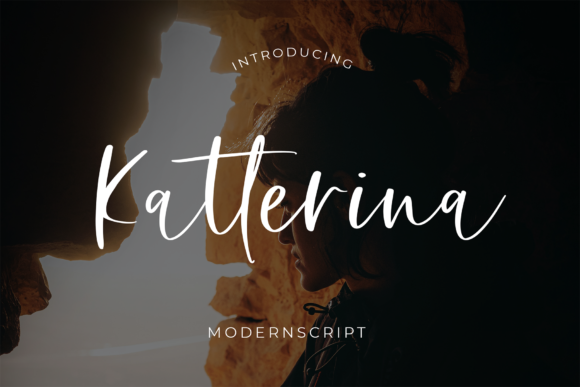
Katterina Font: A Designer’s Take on Elegant Script
Opening a blank artboard for a new boutique skincare client always brings that familiar mix of excitement and pressure, but testing Katterina as the primary display typeface immediately shifted my anxiety into creative flow. As I began sketching out the visual identity for this organic beauty line, I needed something that felt personal yet polished, and Katterina is an exquisite handwritten font, masterfully designed to become a true favorite in my digital toolkit. It maintains its classy calligraphic influences while feeling contemporary and fresh, which was exactly the balance required to make the brand feel luxurious without appearing dated or overly formal. Fall in love with it as you watch your mockups transform from generic templates into bespoke brand assets that actually resonate with a modern audience.
Using Katterina for Boutique Skincare Brand Identity
When integrating Katterina into a comprehensive brand identity system, I quickly realized that this Script Handwritten style offers far more versatility than standard decorative Fonts often do. For this specific project, the goal was to create a logo mark that looked like it had been signed by the founder herself, conveying authenticity and artisanal care. The letterforms in Katterina have a natural bounce and rhythm that prevents the logotype from looking stiff or computer-generated, which is a common pitfall when using script fonts for commercial branding. I found that the uppercase characters provided enough structural weight to anchor the logo, while the lowercase letters offered that delicate, flowing connectivity essential for high-end beauty aesthetics. This duality allowed me to use the font confidently across both the primary logo lockup and secondary brand marks without losing legibility or impact.
Katterina Typography on Product Packaging and Labels
Moving from screen to print, applying Katterina to product packaging and labels revealed how well this typeface handles physical media and tactile surfaces. In the skincare industry, packaging is often the first physical touchpoint a customer has with the brand, so the typography needs to remain crisp even when embossed on textured paper or printed on small glass bottles. I tested Katterina at various sizes on serum dropper labels and outer box sleeves, noting that the stroke contrast remains distinct even at smaller point sizes where many other script fonts tend to bleed or disappear. The contemporary freshness of the design ensures that the product looks current on a crowded shelf, while the classy calligraphic influences signal premium quality to the consumer. It is crucial to check the OpenType features during this stage, as accessing stylistic alternates allowed me to customize specific letter connections on curved label surfaces, ensuring the text flowed naturally around the bottle rather than looking pasted on.
Pairing Katterina with Sans Serif Fonts for Web Design
While Katterina shines as a headline and accent element, successful web design requires thoughtful font pairing to maintain readability and user experience across digital platforms. For the boutique’s e-commerce site, I paired Katterina exclusively with a clean, geometric sans serif for body copy, navigation menus, and product descriptions to create a balanced visual hierarchy. Using Katterina for hero section headlines and category titles added that necessary emotional hook, drawing visitors into the brand story immediately upon landing on the page. However, I deliberately avoided using it for long-form blog posts or dense technical ingredient lists, as the intricate details of Script Handwritten styles can fatigue readers over extended paragraphs. This strategic limitation actually strengthened the brand presence; because Katterina was used sparingly and intentionally, every instance of it felt special and deliberate rather than repetitive or cluttered.
Social Media Graphics and Editorial Layouts with Katterina
Creating content for Instagram and Pinterest became significantly more efficient once I established Katterina as the go-to display font for social media graphics and editorial layouts. The font’s personality translates exceptionally well to square and vertical formats, where bold, expressive typography often performs better than minimalist text in stopping the scroll. I utilized Katterina for quote cards, promotional announcements, and short video overlays, finding that its organic curves complemented the natural textures and soft lighting typical of skincare photography. When designing carousel posts, the font helped maintain visual consistency across multiple slides, tying together educational content with lifestyle imagery through a unified typographic voice. For designers working in this niche, having a reliable creative font that photographs well and retains clarity on mobile screens is invaluable, and Katterina consistently delivered sharp rendering across different device resolutions and background complexities.
Practical Tips for Testing Katterina in Real Projects
If you are considering adding Katterina to your next project, start by testing it in context rather than just viewing the specimen sheet in isolation. Create a quick mood board or a single mockup—like a business card or an Instagram story—to see how the Script Handwritten characteristics interact with your specific color palette and imagery. Pay attention to the spacing between words, as handmade-style Fonts sometimes require manual tracking adjustments to achieve optimal optical balance in all-caps settings versus mixed case. Experiment with the stylistic sets to find unique character variations that can serve as distinctive brand signatures, such as a special ampersand or terminal swash that appears only in your client's materials. Remember that Katterina is an exquisite handwritten font, masterfully designed to become a true favorite, but its success ultimately depends on respectful application that honors its classy calligraphic influences while leveraging its contemporary edge. By treating it as a specialized tool for emphasis and emotion rather than a utility workhorse, you preserve its magic and ensure your designs feel both timeless and timely.